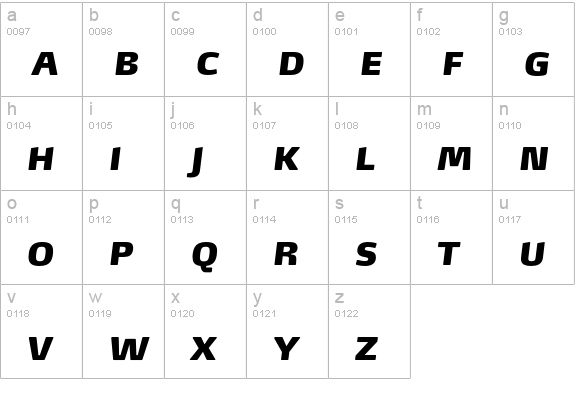
Max-BlackItalicSC Font Details
Max-BlackItalicSC is a stylish and modern font with a touch of sophistication. Its elegant slanted design exudes a sense of boldness and professionalism, making it perfect for a wide range of design projects. Whether you are creating a sleek logo, designing a chic invitation, or crafting a standout headline, Max-BlackItalicSC is sure to make a statement. The sleek curves and sharp edges of this font create a unique visual impact that will captivate your audience. Its black weight adds a sense of drama and intensity, while the italic styling adds a touch of flair and personality. Max-BlackItalicSC strikes the perfect balance between classic elegance and contemporary edge. What's even better is that Max-BlackItalicSC is available for free download at FontsMarket.com. This means you can easily access this stunning font and use it in your projects without any cost. Don't miss out on the opportunity to elevate your designs with the striking beauty of Max-BlackItalicSC. Download it today and let your creativity shine!